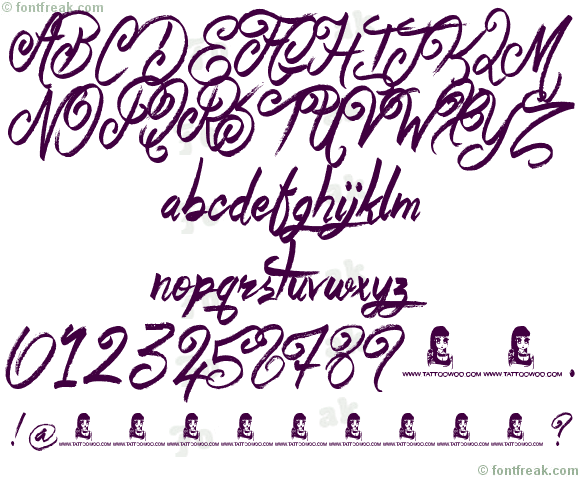
Believer Fever
Believer Fever is an enchanting script font designed by Jonathan S. Harris, categorized as a decorative typeface. This font exudes a unique charm with its fluid, handwritten style that captures the essence of personal expression. The strokes are varied in weight, creating an appealing contrast that adds depth to each letter. The graceful curves and swirls, coupled with generous spacing, give the font an airy feel, making it visually engaging and easy to read.
This versatile typeface is ideal for a range of creative applications. Its whimsical aesthetic makes it a perfect choice for wedding invitations, where it can convey romance and elegance. Additionally, Believer Fever shines in the realm of movie posters, providing an artistic flair that can draw the viewer's attention. Small business owners might find it suitable for restaurant menus, as it adds a touch of sophistication while remaining legible. Content creators can also utilize this font on social media graphics and promotional materials, ensuring their messaging stands out in a crowded digital landscape.
What sets the Believer Fever font apart is its ability to blend artistic flair with practical usability. The decorative elements and distinctive style make it not only visually appealing but also functional for various design needs. Whether you're crafting an elegant invitation or a bold promotional piece, the Believer Fever font free download offers a unique solution that enhances the overall aesthetic of your work.